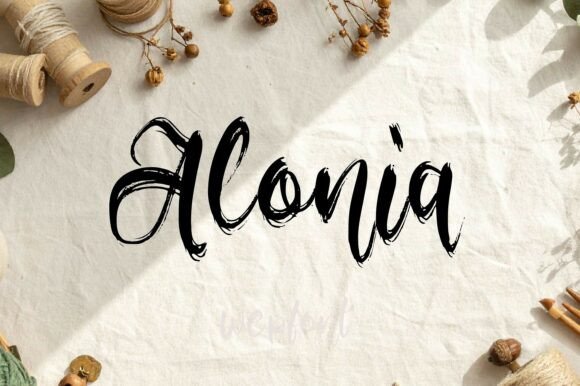
The Elegant Charm of Alonia Font: A Designer’s Delight
I still remember the project that led me to discover Alonia Font. I was working on a wedding invitation design, and my client wanted a font that exuded elegance, sophistication, and a personal touch. I had been searching for hours, but nothing seemed quite right. That was when I stumbled upon Alonia, and it instantly captured my heart. Its beautiful, flowing script and charming imperfections made it the perfect fit for my project. In this article, I’ll share with you what makes Alonia Font special, its uses, and some helpful tips for incorporating it into your designs.
What Makes Alonia Font Special?
Alonia Font is a stunning handwritten typeface that embodies elegance, charm, and a personal touch. Its classic, connected letterforms and varying line thickness give it a sophisticated yet approachable personality. Here are some of its standout features:
- Elegant Script Style: Alonia features the classic, connected letterforms characteristic of script fonts, creating a sense of refined beauty and fluidity.
- Handwritten Authenticity: Despite being a digital font, Alonia successfully captures the charm and slight imperfections of genuine handwriting, making it feel warm and personal.
- Versatile Sophistication: It’s sophisticated enough for formal applications but also has a friendly quality that works well for more casual, heartfelt designs.
- Excellent Legibility for a Script: Despite its ornate nature, the individual letterforms are generally clear, making it readable for headlines and short phrases.
- ✨ Elegant and sophisticated, yet approachable and friendly
- ✅ Excellent legibility for a script font
- 💫 Perfect for formal and casual designs
- 🎨 Great for creative projects, such as wedding invitations, branding, and packaging
While Alonia Font is an excellent choice for many projects, there are a few things to keep in mind:
- ⚠️ May not be suitable for very long texts or body copy, as its ornate nature can be overwhelming.
- 🤔 Some characters may require manual kerning for optimal spacing.
The Story Behind Alonia Font
Alonia Font was designed with the intention of creating a beautiful, elegant script font that captures the charm and sophistication of traditional calligraphy. Its creator aimed to craft a font that would be versatile, legible, and perfect for a variety of creative projects. While the exact story behind Alonia Font may be unknown, its design is undoubtedly inspired by the art of calligraphy and the beauty of handwritten script.
Q: What type of projects is Alonia Font best suited for?
A: Alonia Font is perfect for creative projects that require an elegant, sophisticated touch, such as wedding invitations, branding, packaging, and more.
Q: Is Alonia Font difficult to read?
A: Despite its ornate nature, Alonia Font is generally clear and legible, making it suitable for headlines and short phrases.